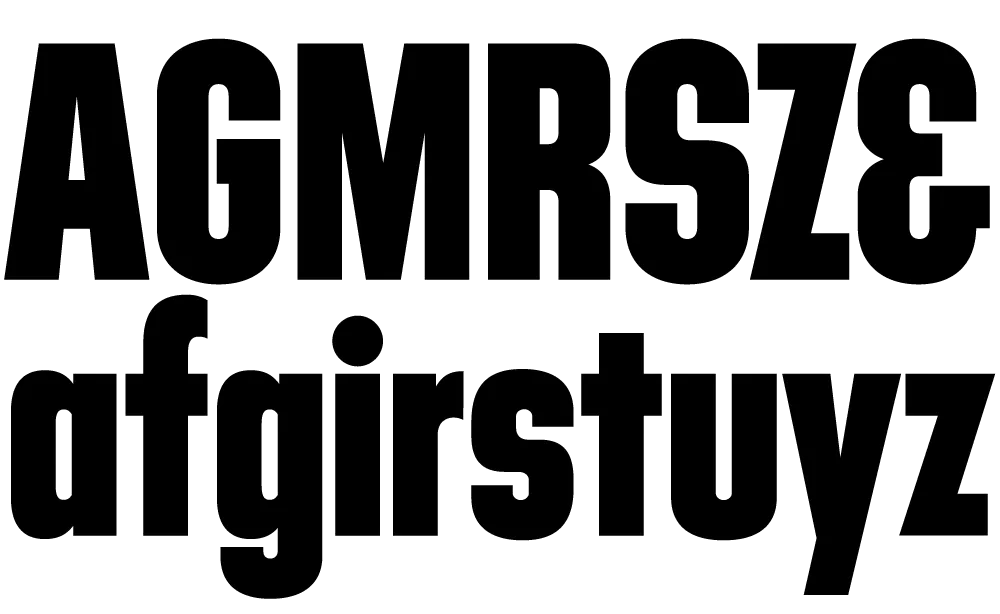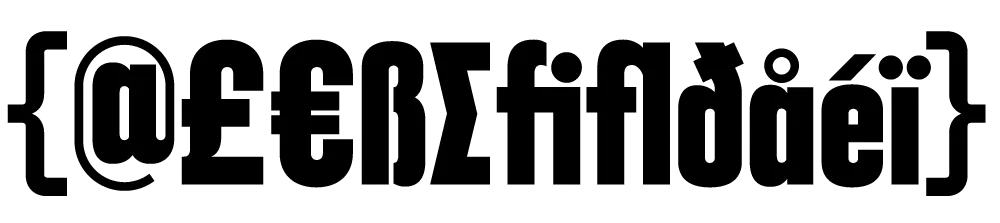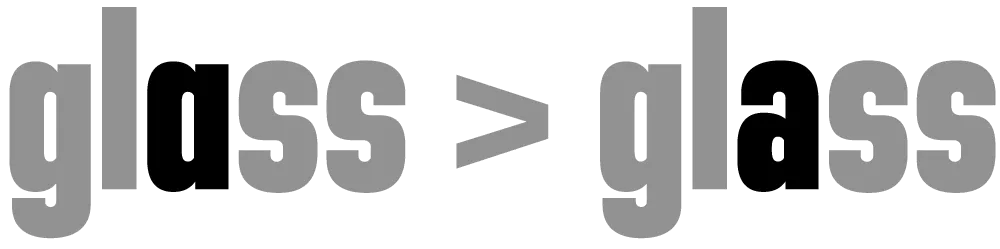
Introducing Filmotype Ginger
Ginger is the most recent Filmotype font I’ve digitized. (See also Zanzibar and Glenlake.) It’s the first in a range of Filmotype “G” series fonts—condensed sans serifs whose names all start with “G”—that have many Futura-like features that are unusual for the style. I was interested in this range of typefaces even before I knew about Filmotype. Few of them have ever been digitized before. I plan to do all of them eventually (sooner than later, I hope).
To bring Ginger into the 21st century meant designing dozens of new characters to expand its limited character set. Caps, lowercase, numbers and a few symbols and punctuation marks might have been okay back in the 1950s, but today’s fonts are global citizens and have to play as well in Prague as they do in Peoria. In designing the new characters, I tried to imagine how Ginger’s designer would have designed them. (We know who designed some of the Filmotype fonts, but not Ginger. Over the years many of the records of who did what were lost.)
Like all the new Filmotype revivals (available from Font Bros), Ginger has been remastered to high standards and is a modern font in every way. It is available in OpenType format, which means you can use the same font on either Mac or PC, and includes many OpenType goodies, such as an alternate lowercase “a”, arbitrary fractions, case-sensitive forms, and extensive language support.